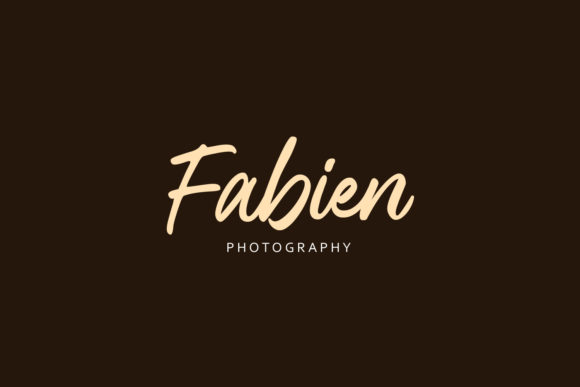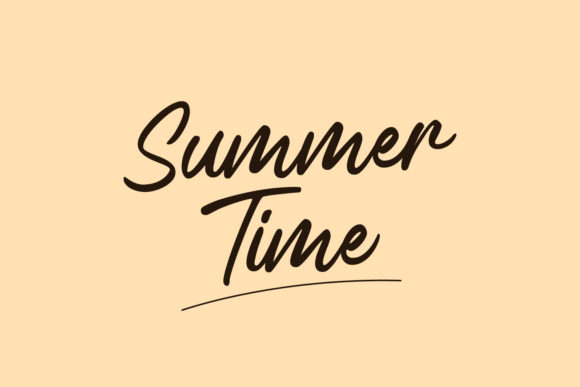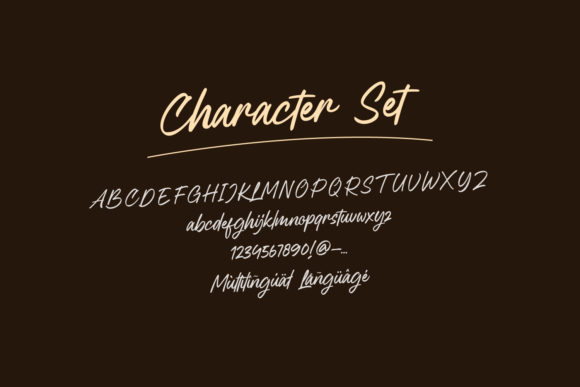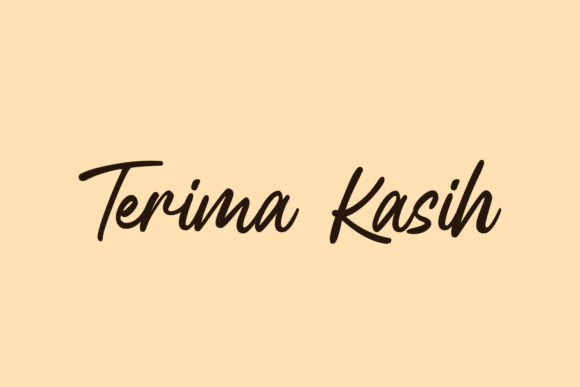
Coffeelate Font: Elevate Your Design with a Touch of Luxury
In the world of typography, fonts play a crucial role in conveying the tone and aesthetic of a design project. For designers and crafters seeking to add a touch of luxury and sophistication to their work, the Coffeelate font is an excellent choice. This beautiful light handwritten font boasts a unique feel and stunning impact, making it perfect for a wide range of design applications.
The Unique Charm of Coffeelate Font
Coffeelate is a carefully crafted font that exudes elegance and refinement. Its light handwritten style gives it a personal and approachable feel, while its unique characteristics make it stand out from more traditional fonts. The subtle variations in line width and letterform create a sense of movement and fluidity, adding a dynamic touch to any design.
Adding Luxury to Your Design Projects
Whether you’re working on a branding project, packaging design, or digital marketing materials, Coffeelate font is sure to elevate your work to the next level. Its luxurious feel and sophisticated aesthetic make it perfect for high-end designs, such as:
- Luxury fashion brands
- High-end product packaging
- Wedding and event invitations
- Corporate branding and identity
- Digital marketing materials, such as social media graphics and email newsletters
Key Features of Coffeelate Font
So, what makes Coffeelate font so special? Here are some of its key features:
- Light Handwritten Style: Coffeelate’s light handwritten style gives it a personal and approachable feel, making it perfect for designs that require a touch of elegance and sophistication.
- Unique Characteristics: The font’s subtle variations in line width and letterform create a sense of movement and fluidity, adding a dynamic touch to any design.
- High-Quality Design: Coffeelate font is designed with high-quality craftsmanship in mind, ensuring that it looks great in any design application.
- Easy to Read: Despite its elegant and refined aesthetic, Coffeelate font is easy to read, making it perfect for body text and other applications where legibility is important.
Tips for Using Coffeelate Font in Your Designs
To get the most out of Coffeelate font, here are some tips for using it in your designs:
- Pair it with Bold Fonts: Coffeelate font pairs well with bold fonts, which can help to create a striking contrast and add visual interest to your design.
- Use it for Headings and Titles: Coffeelate font is perfect for headings and titles, where its elegant and refined aesthetic can really shine.
- Experiment with Colors: Coffeelate font looks great in a range of colors, so don’t be afraid to experiment and find the perfect shade to match your brand or design.
In conclusion, Coffeelate font is a beautiful and luxurious font that can add a touch of sophistication and elegance to any design project. Its unique feel and stunning impact make it perfect for a wide range of design applications, from luxury fashion brands to digital marketing materials. With its high-quality design, easy readability, and versatility, Coffeelate font is an excellent choice for designers and crafters looking to elevate their work to the next level.
Get Creative with Coffeelate Font
So why not give Coffeelate font a try? With its luxurious feel and sophisticated aesthetic, it’s sure to become a go-to font in your design toolkit. Whether you’re working on a branding project, packaging design, or digital marketing materials, Coffeelate font is the perfect choice for adding a touch of luxury and sophistication to your work.